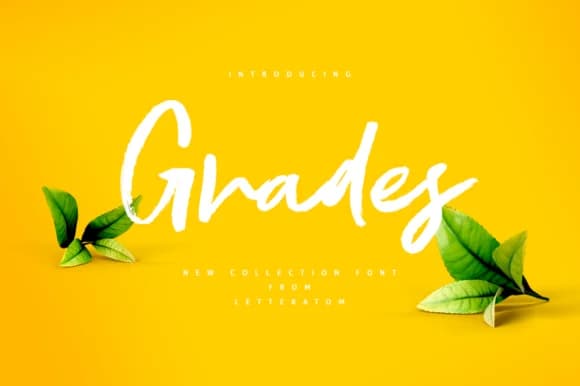
Imagine designing a wedding invitation suite where every detail feels personal and handcrafted. Grades, created by Letteratom, brings exactly that quality to your work. This script typeface captures the organic flow of pen on paper without sacrificing readability, making it ideal for layouts where authenticity matters most. It works beautifully across wedding stationery, handwritten logo designs, and botanical product packaging, where that artisanal touch is what sets your work apart from the rest.
The font's character makes it equally effective in greeting card designs and event programs where personality needs to shine through. It remains readable at display sizes while maintaining the slight irregularities that make handwritten script feel genuine and lived-in. Small details like natural stroke variation and flowing letterforms keep the design from feeling too polished or synthetic, which is precisely what clients want when they're seeking that human, organic quality. Consistency across letters ensures the work functions in professional contexts without losing its charm.
Grades Font is a script font that shines as a display or heading face. Pair it with a clean sans-serif or serif font for body text β the contrast creates a clear hierarchy while the two styles stay balanced and easy to read.
Grades Font
by Letteratom